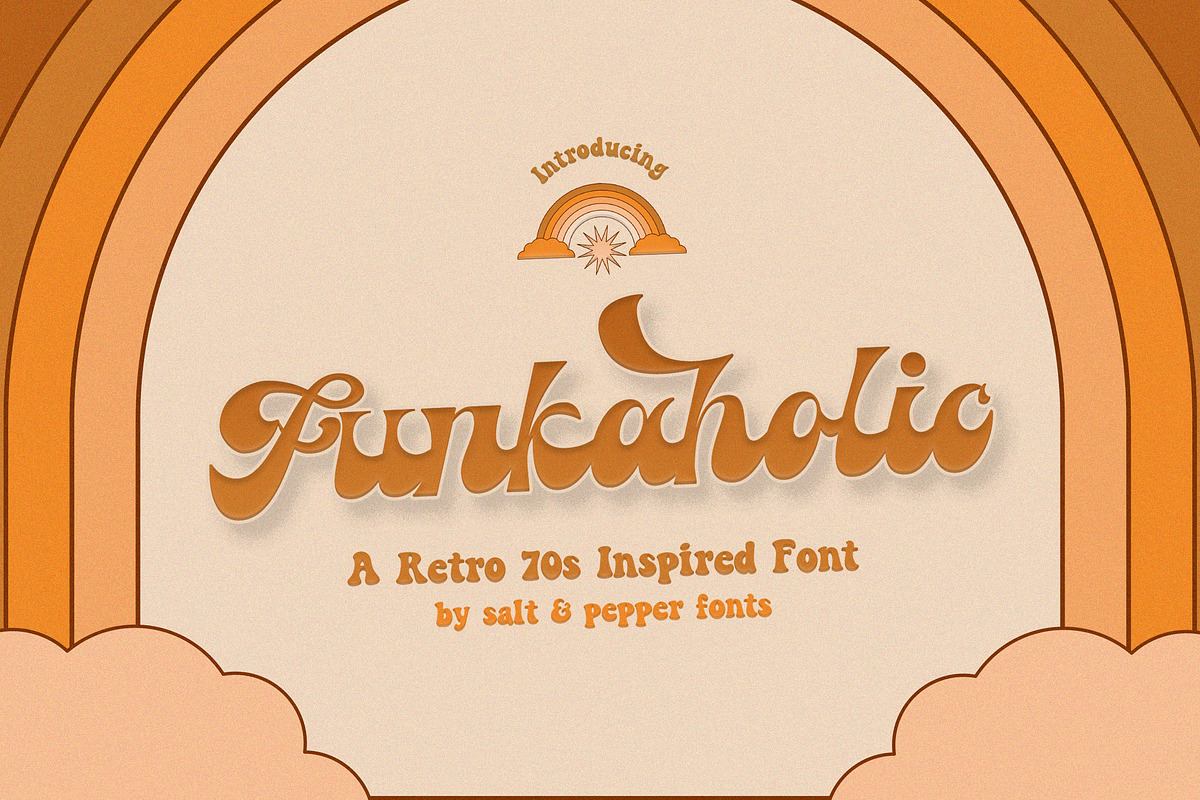
Funkaholic Font Free Download is a bold and funky typeface designed to bring energy and style to your creative projects. With its unique, playful curves and retro-inspired vibe, Funkaholic is perfect for music posters, event branding, retro designs, and anything that needs a funky, vibrant flair.
This font is packed with personality and charm, making it ideal for projects that aim to make a fun, statement-making impression. Whether you're designing for a music festival, a trendy streetwear brand, or a lively event, Funkaholic adds boldness and rhythm to your typography.